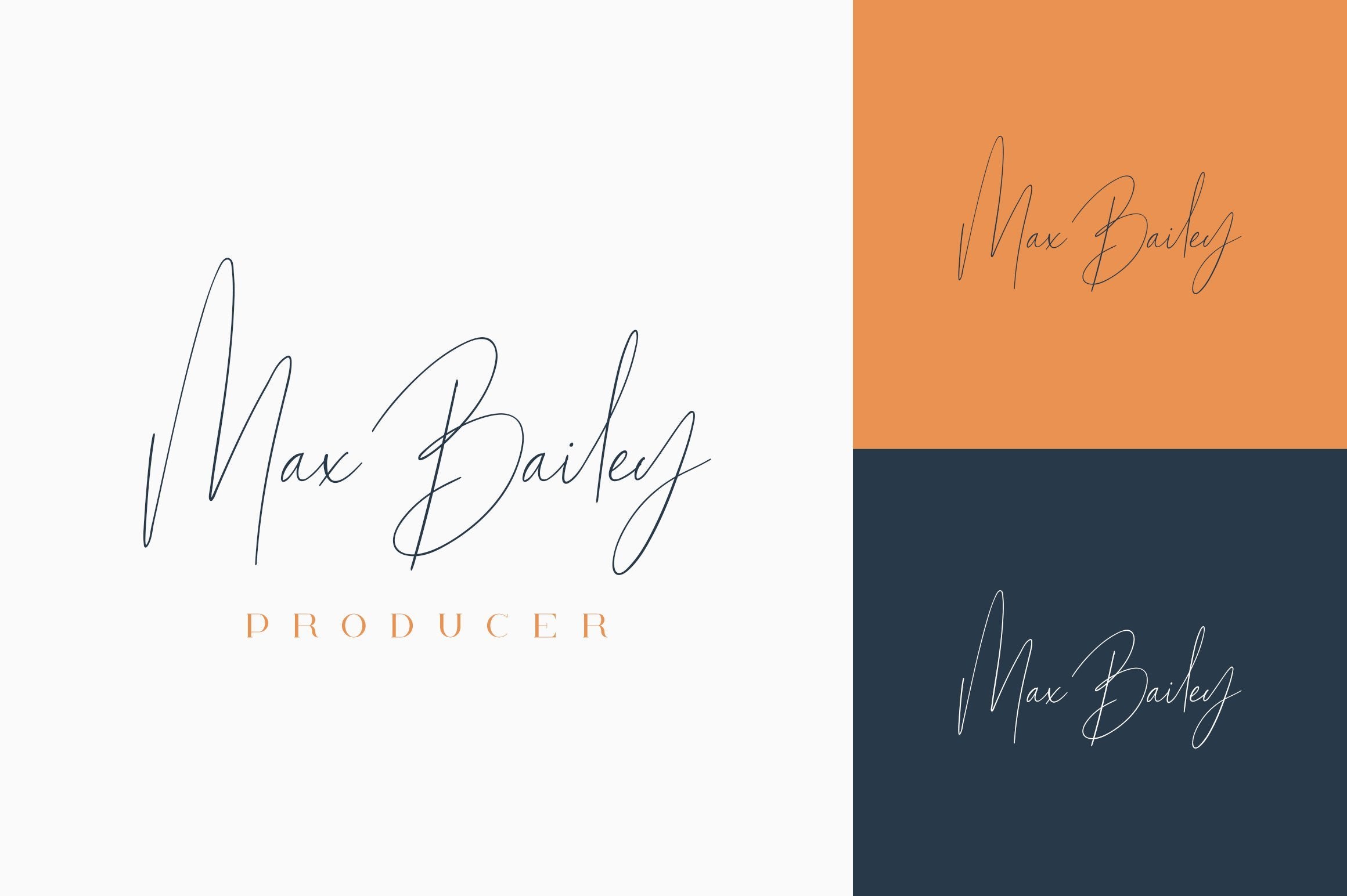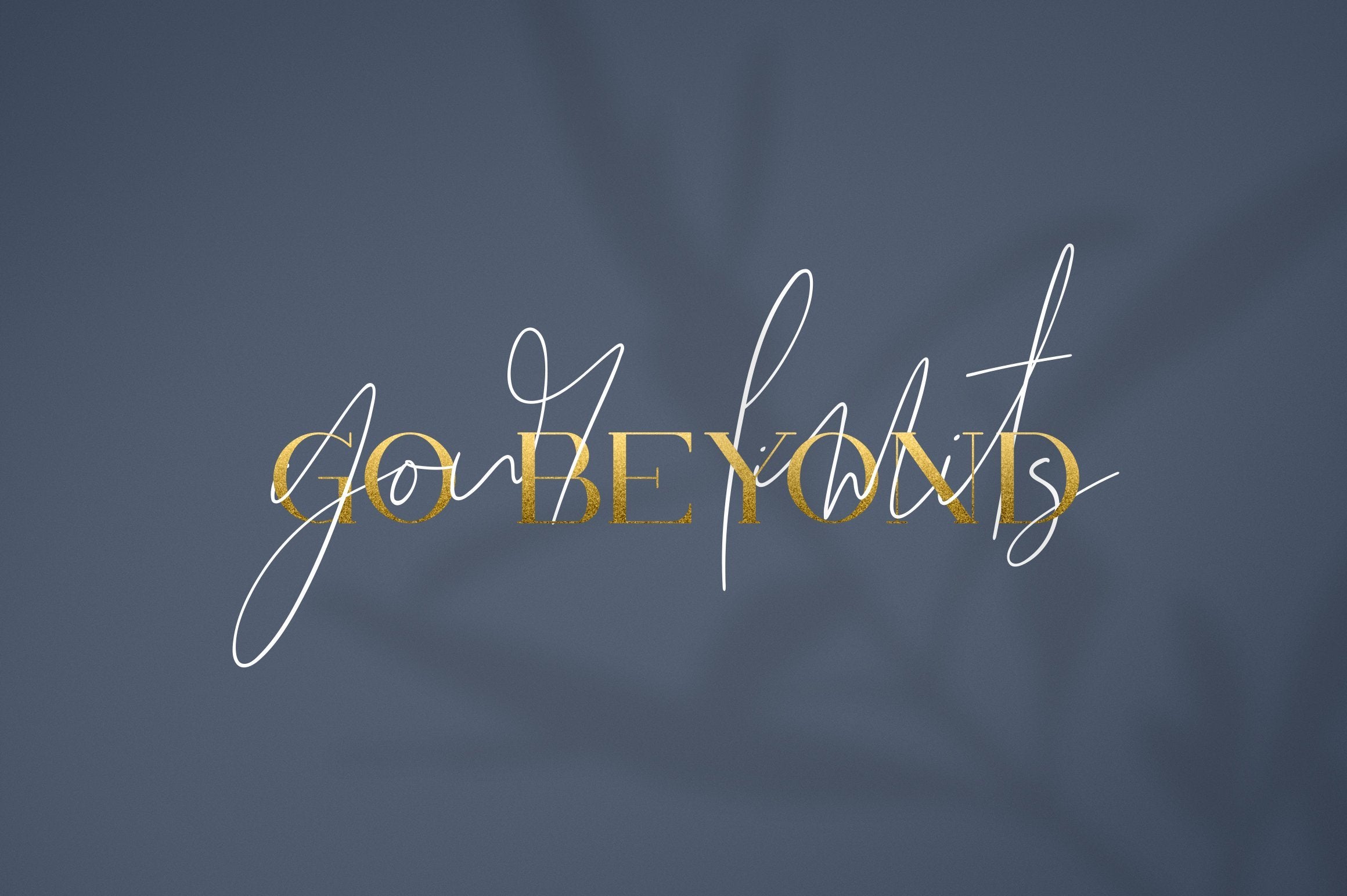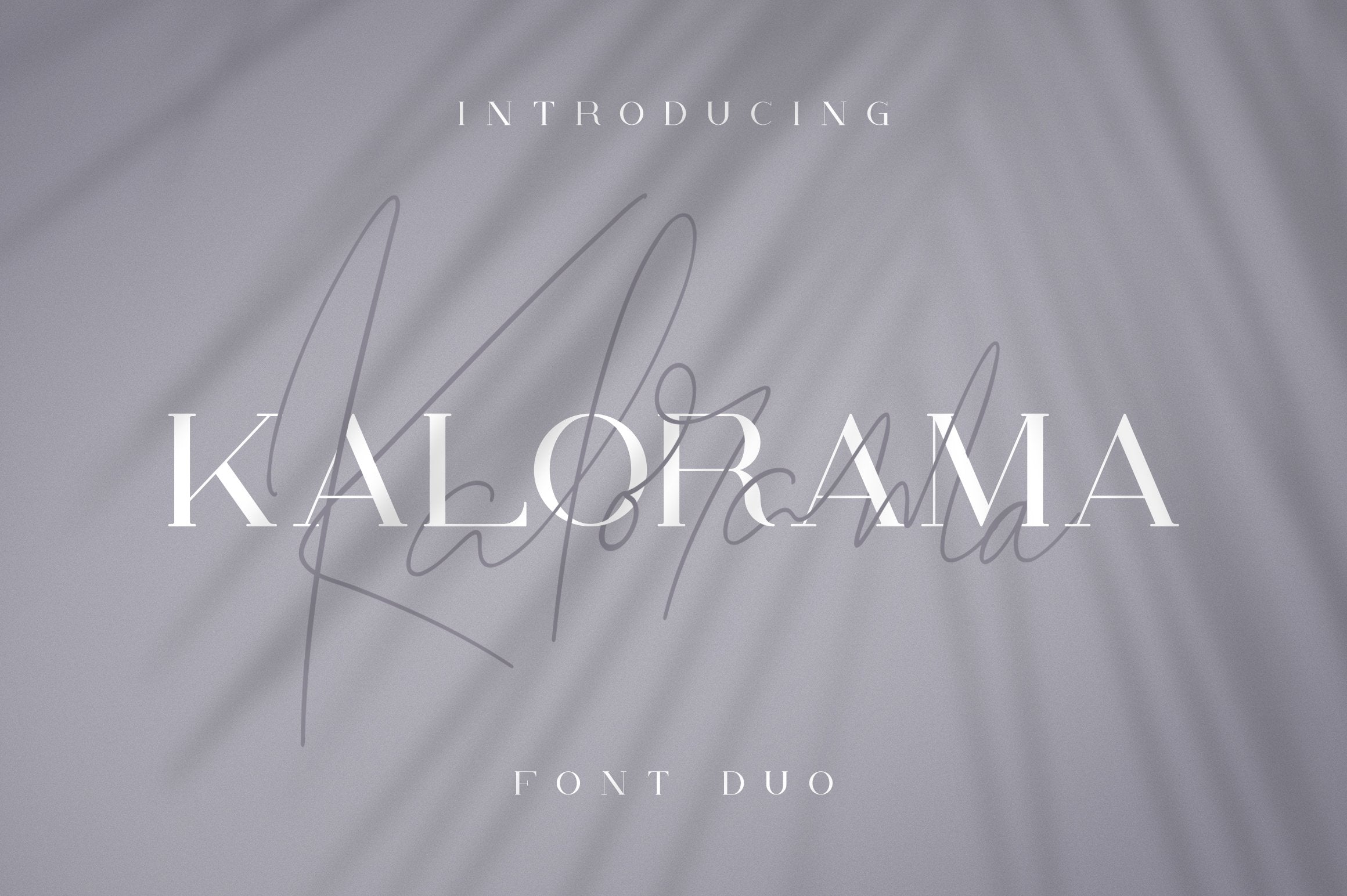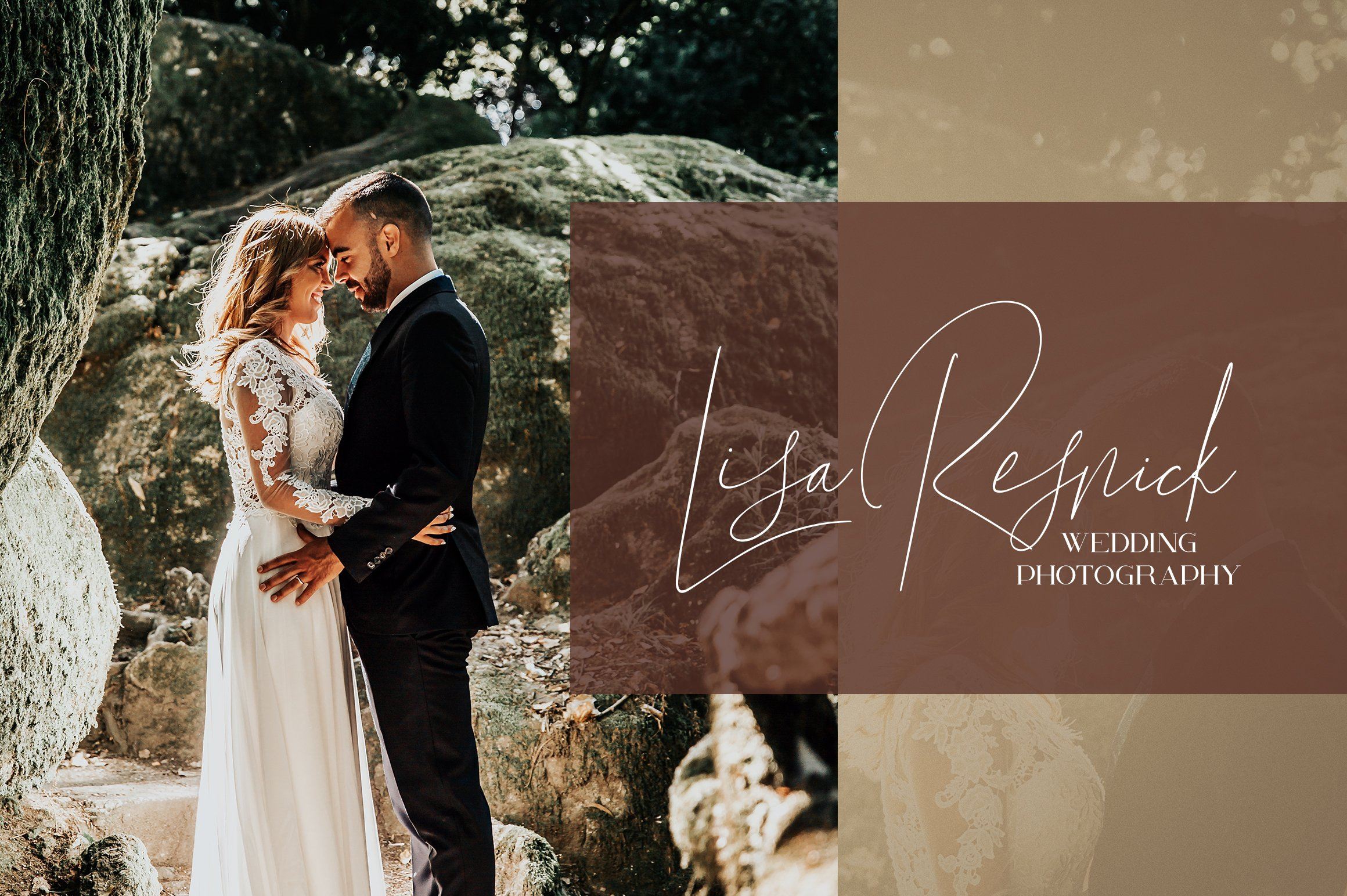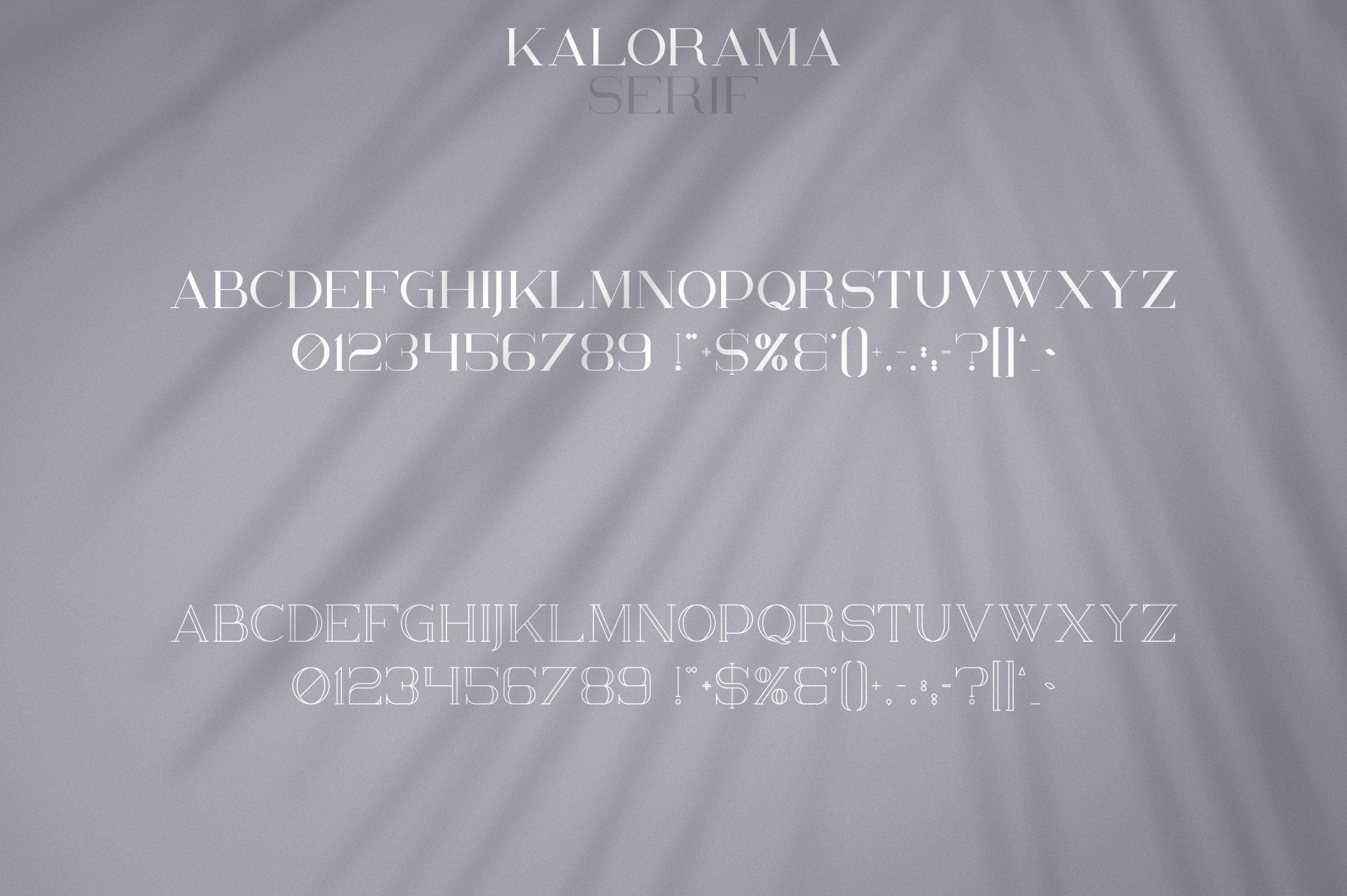
About Kalorama – Font duo
Introducing Kalorama – Fort duo Kalorama is clean, modern typeface with serif ( regular and outline ) and script versions, ligatures and multilingual support. It’s a very versatile font that works great in large and small sizes. Kalorama is perfect for branding projects, home-ware designs, product packaging, magazine headers – or simply as a stylish text overlay to any background image. Uppercase,lowercase, numeral,punctuation & Symbol Regular Outline Script Ligatures Multilingual support Feel free to contact me if you have any questions! Mock ups and backgrounds used are not included! Thank you! Enjoy!